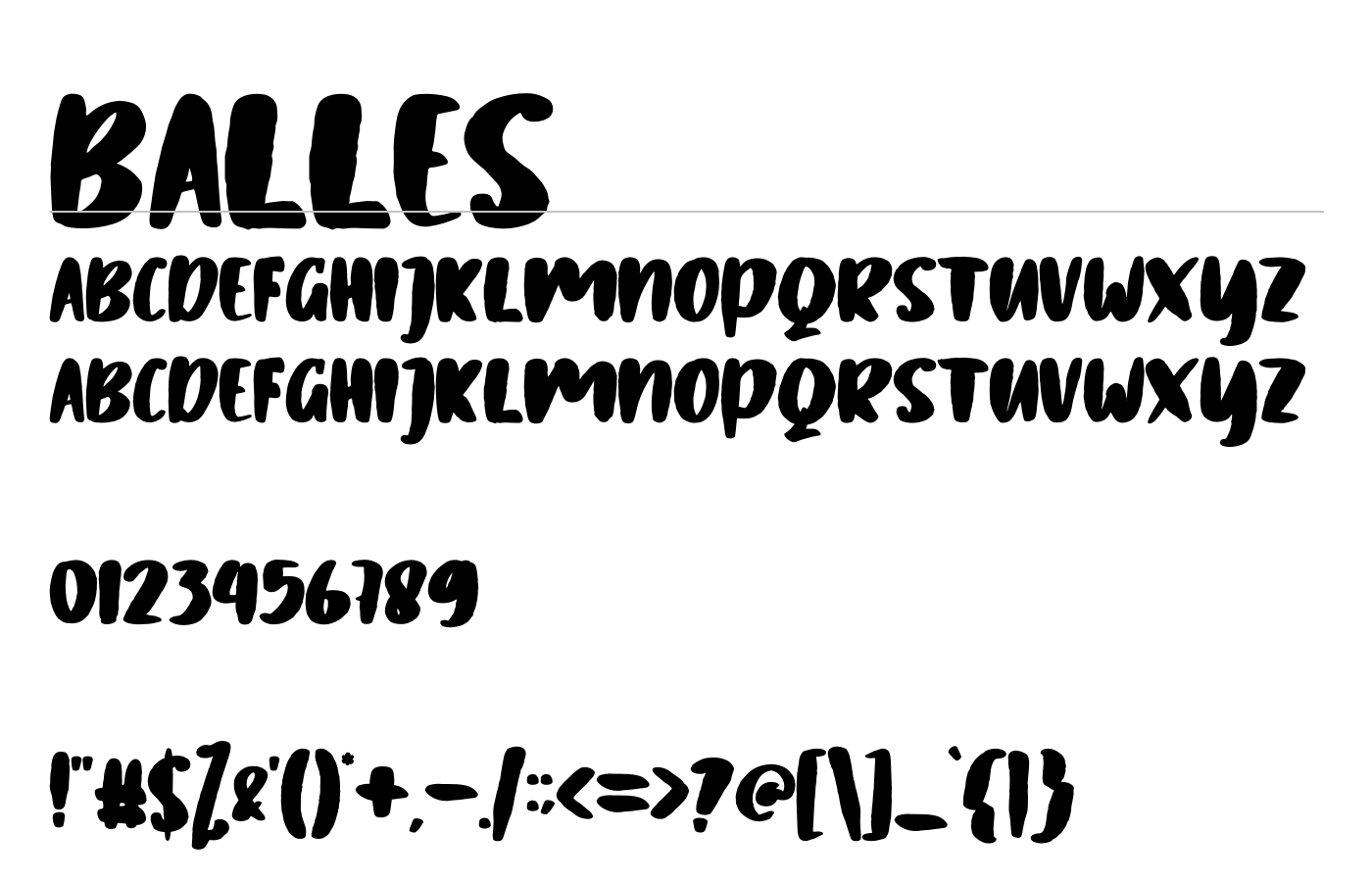
Balles is a bold, playful handwritten font with a chunky, rounded style that gives it a friendly and approachable feel. Its uneven strokes and informal letter shapes make it perfect for creative projects, casual branding, and designs that want to convey warmth and personality. This font works well in headlines, logos, and packaging where a fun, energetic vibe is desired.
Balles Font